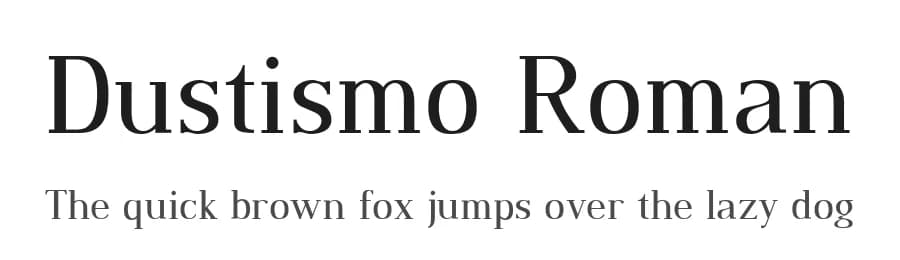
About Dustismo Roman Font
Dustismo Roman is a serif font designed by Cheapskate Fonts. It includes 529 glyphs, a regular weight, TTF (TrueType) format, and 272 languages. Dustismo Roman is free to download; check the license details on this page before commercial use. Serif fonts like Dustismo Roman work best for body text, editorial layouts, book covers, and classic branding.
Dustismo Roman Font is a versatile serif font that works for both headings and body text. Pair it with a contrasting sans-serif or slab serif font to add visual interest and a clear distinction between titles and body copy.
Dustismo Roman Font
Dustismo Roman Font is a serif typeface by Cheapskate Fonts, ideal for logos, invitations, branding, and creative projects.